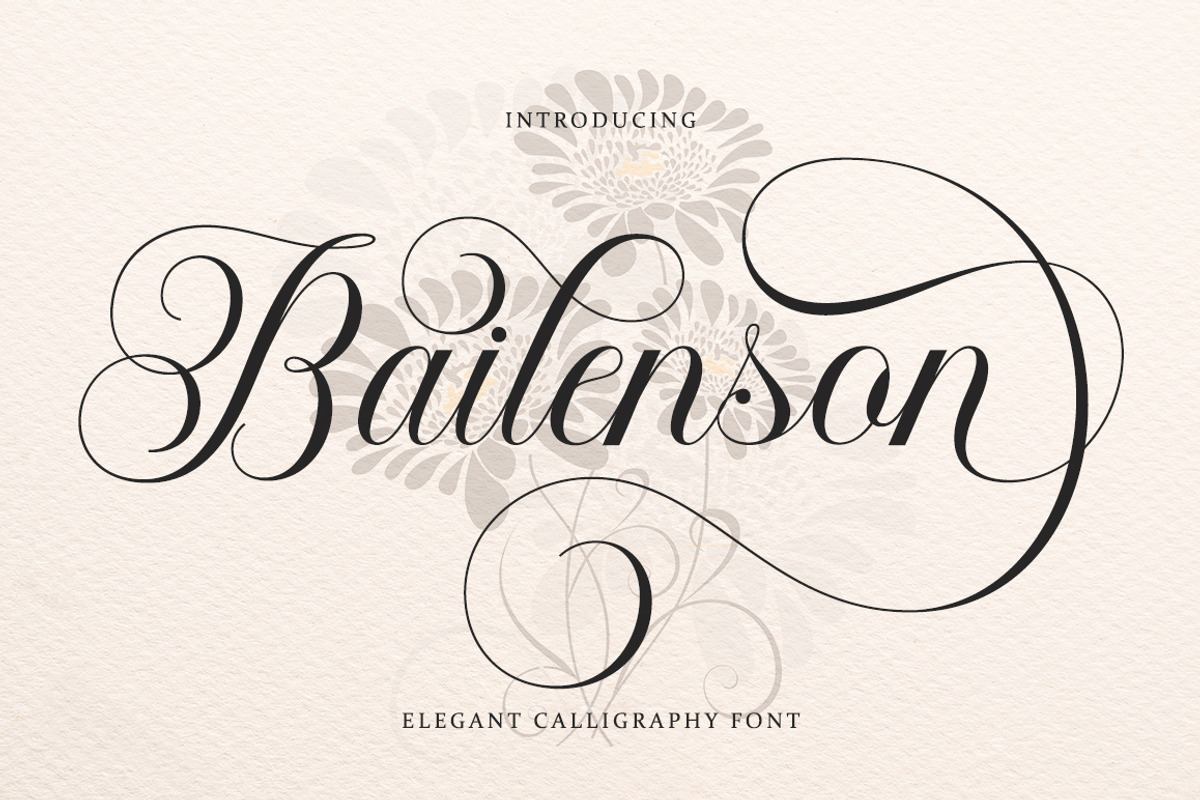
Add a personal and elegant touch to your designs with the Bailenson Font Free Download — a modern script typeface that blends effortless flow with stylish sophistication. Featuring smooth curves and delicate strokes, Bailenson is ideal for signature logos, branding, wedding invitations, greeting cards, and high-end social media content.
Its natural handwritten style creates a sense of authenticity and warmth, while still maintaining a professional and polished appearance. Whether you're designing for fashion, lifestyle, or creative businesses, Bailenson helps you connect emotionally through typography.